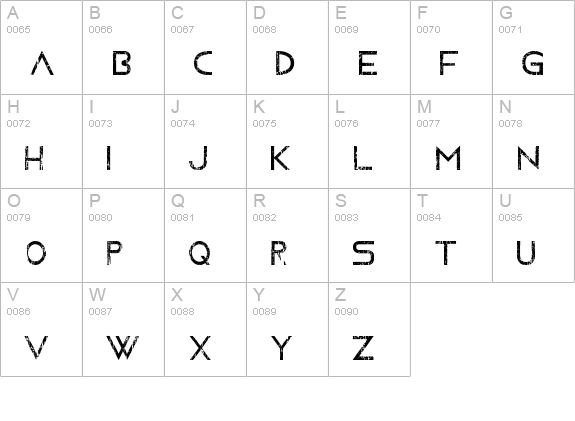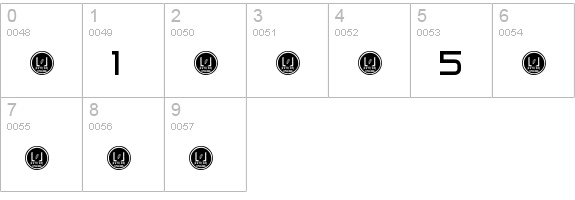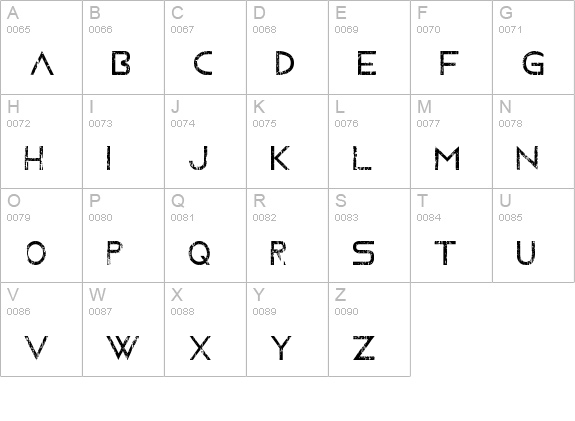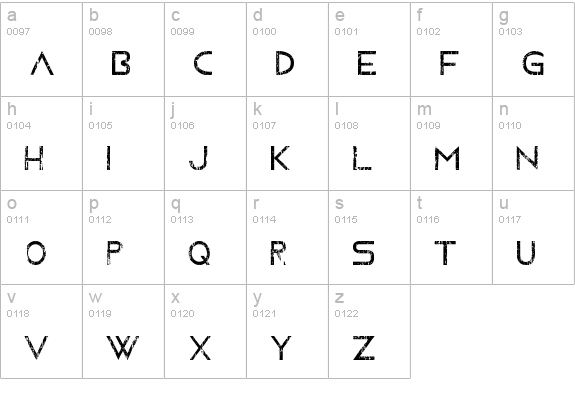
Moving Forward - LJ-Design Studios Grunge Font Details
Moving Forward - LJ-Design Studios Grunge font is a bold and edgy typeface that exudes a raw and gritty aesthetic. With its distressed and textured appearance, this font is perfect for projects that require a rugged and urban feel. Whether you're designing album covers, posters, or clothing labels, this font will add an element of rebelliousness and attitude to your work. What sets Moving Forward - LJ-Design Studios Grunge font apart is not only its unique style but also the fact that it is freely available to download at FontsMarket.com. This means that you can use this font in your personal and commercial projects without any restrictions. Whether you're a professional designer or a hobbyist, this font allows you to add a touch of grunge to your creations without breaking the bank. The versatility of Moving Forward - LJ-Design Studios Grunge font is another reason why it has gained popularity among designers. It can be used for both display and body text, making it suitable for various design purposes. The bold and rugged nature of the font also ensures that it stands out and grabs attention, making it ideal for headlines, logos, and branding. The attention to detail in the design of Moving Forward - LJ-Design Studios Grunge font is evident in its distressed and worn-out appearance. Every curve and line has been meticulously crafted to create a sense of authenticity and character. The textured edges and rough outlines give the font a handmade feel, adding to its overall appeal. If you're looking to add a touch of grunge and rebellion to your designs, then Moving Forward - LJ-Design Studios Grunge font is the perfect choice. Its free availability at FontsMarket.com makes it accessible to everyone, allowing you to unleash your creativity without any limitations. Download this font today and let it take your designs to the next level.